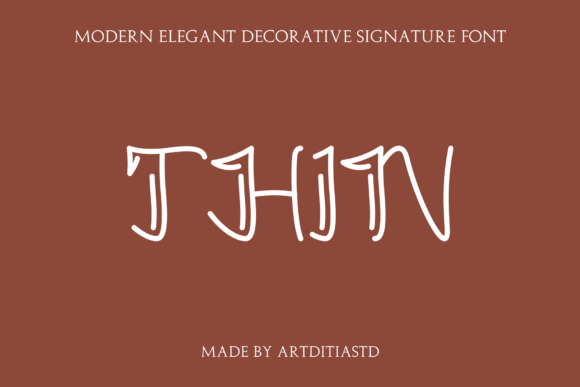
Thin Font
Introducing “Thin,” a bold and authentic script font designed for a variety of branding projects. Whether you’re working on a logo, T-shirt printing, export branding, or other creative endeavors, “Thin” stands out with its modern and distinctive style.
The bold and authentic script of “Thin” adds a sense of character and uniqueness to your text. Its versatility allows it to make a bold statement in a wide range of contexts, making it suitable for different types of branding projects.
Imagine “Thin” making your logo design stand out, where its bold script creates a memorable and impactful visual identity. Picture it on T-shirt prints, adding a modern and stylish touch to your apparel branding. Envision it becoming the go-to font for your export business, creating a strong and recognizable brand image.
“Thin” is not just a font; it’s a design element that brings boldness and authenticity to your projects. Its modern and outstanding style makes it a valuable asset for various branding applications.